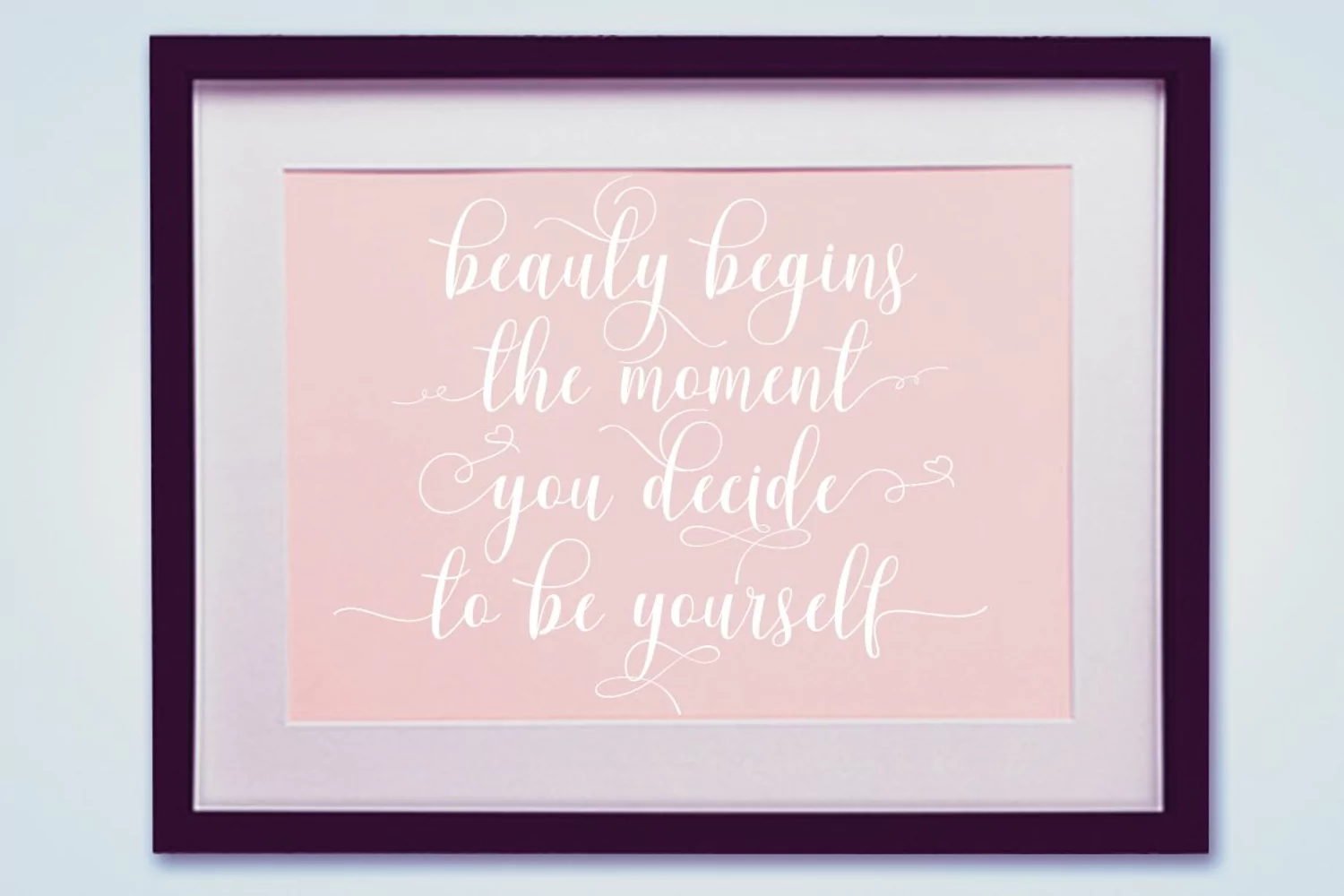
Pleasselio Script
INTRODUCING the newest else is so beautiful,
modern, romantic, and very elegant that are designed to compliment each
other perfectly.
Pleasselio Script : A script that is so beautiful
with gorgeous grounds, and furnished with fine lines are perfect for use
many purposes. such as title, signature, logo, correspondence, wedding
invitations, letterhead, signage, labels, newsletters, posters, badges,
Branding, Greeting Cards, etc.
Pleasselio Script : features 609 glyphs and has given PUA unicode
(specially coded fonts), can be accessed easily with the character map,
can be accessed in full by the lovers of letters or artisans to
increase career in the design world.
The Features of this fonts is: Standart ligatures, Stylistic Alternates, Stylistic Sets, and swashes.